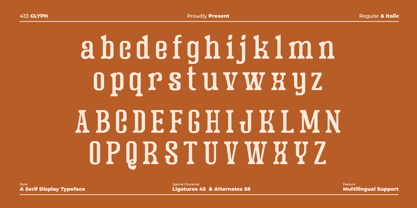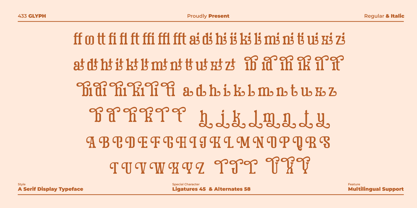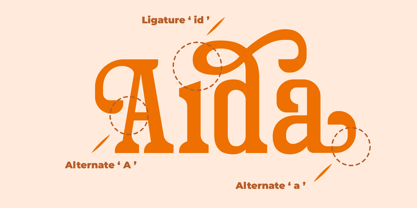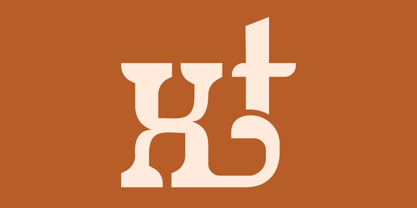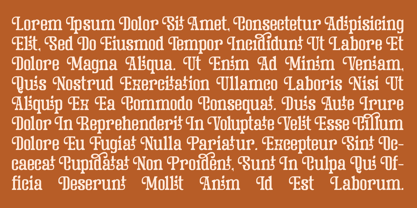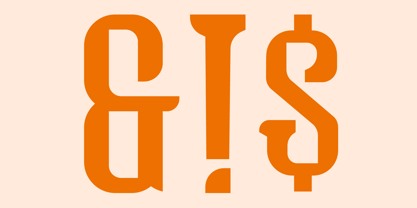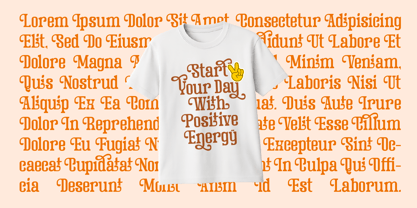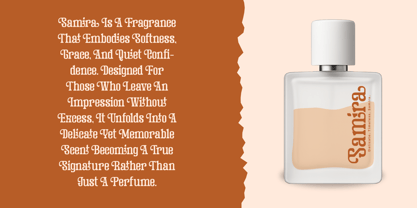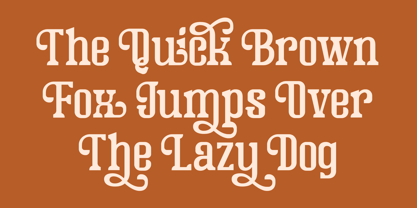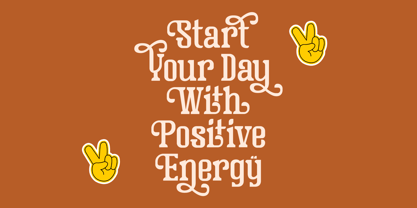
Lilynt
by Risma Type
The Lilynt Font Family was designed by Risma Mulyasari and published by Risma Type. Lilynt contains 2 styles and family package options. More about this family
Lilynt is a refined serif display typeface that embodies elegance, contrast, and editorial luxury. With its graceful proportions and striking stroke contrast, Lilynt is ideal for headlines and visual statements where character and sophistication are essential. Inspired by fashion editorials, European magazines, and high-end branding, this typeface shines in applications such as logos, titles, posters, magazine covers, packaging, and beauty or luxury brands. As a display font, Lilynt is specifically designed for short text that demands attention rather than long-form reading. It harmoniously blends classic serif traditions with a modern, polished aesthetic, offering a timeless yet contemporary voice for designers seeking a premium and expressive typographic solution. Recommended uses include headlines, logos, editorial layouts, fashion branding, luxury packaging, posters, and visual identities, making it a versatile choice for impactful design.